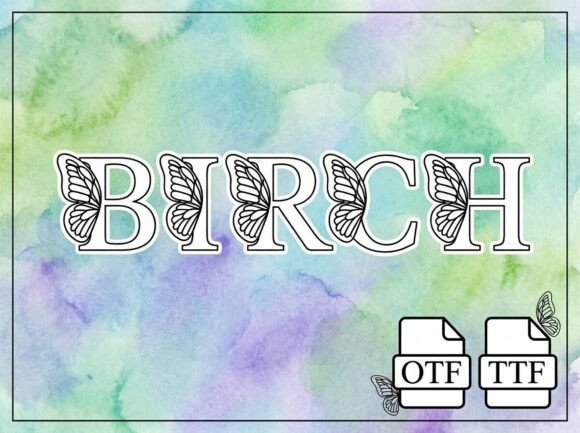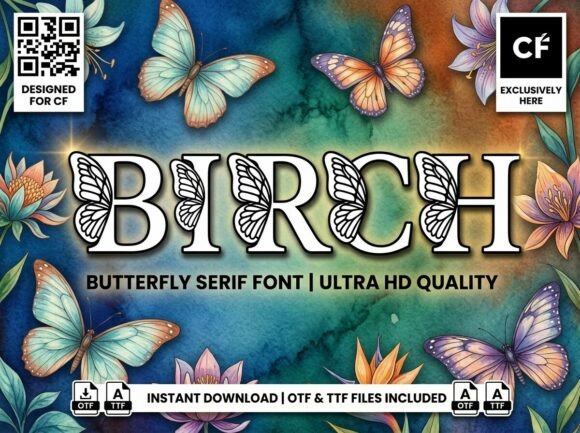
Introducing Birch Font: Elevate Your Designs with Ethereal Elegance
In the world of typography, few fonts capture the essence of whimsy and sophistication as effortlessly as Birch. This delicate display typeface is designed to infuse your designs with an ethereal and enchanting soul, making it perfect for projects that demand a touch of elegance and playfulness. With its unique blend of classic outline serif letterforms and rhythmic, hand-drawn flourishes, Birch is poised to transform your designs and elevate your brand’s visual identity.
The Unique Charm of Birch Font
Birch Font is distinguished by its classic, outline serif letterforms that exude a sense of timelessness and sophistication. What sets it apart, however, are the rhythmic, hand-drawn “butterfly wing” flourishes that adorn each letter. These flourishes are not merely decorative; they bridge the gap between whimsical nature illustration and modern boutique branding, giving Birch a unique personality that is both feminine and captivating.
One of the standout features of Birch Font is its versatility. Its balanced weight and graceful personality make it suitable for a wide range of design applications. Whether you’re creating an identity for an independent garden center, designing a logo for a boutique skincare brand, crafting invitations for a spring event, or developing high-impact social media headers, Birch offers the perfect blend of elegance and charm.
Ideal for Nature-Inspired and Feminine Designs
Birch Font’s design elements are particularly well-suited for projects that celebrate nature and femininity. For garden centers and floral shops, Birch can help create an identity that reflects the beauty and delicacy of nature. Similarly, for boutique skincare brands and wellness products, the font’s elegant and soothing aesthetic can convey a sense of purity and luxury.
Enhancing Your Brand with Birch
Incorporating Birch Font into your design projects can significantly enhance your brand’s visual identity. The font’s unique combination of classic serifs and playful flourishes can help your brand stand out in a crowded marketplace. Moreover, Birch’s readability and aesthetic appeal make it an excellent choice for both digital and print media, ensuring that your message is conveyed with clarity and style.
Tips for Using Birch Font Effectively
To make the most of Birch Font, consider the following tips:
- Pair with Complementary Fonts: For body text, pair Birch with a clean, sans-serif font to create contrast and enhance readability.
- Experiment with Colors: While pastel shades complement Birch beautifully, don’t be afraid to experiment with other colors that align with your brand’s palette.
- Utilize Flourishes Creatively: Take advantage of the unique flourishes in Birch by using them as decorative elements in your designs, such as backgrounds or dividers.
Birch Font is more than just a typeface; it’s a design element that can transform your projects with its ethereal and enchanting aesthetic. By incorporating Birch into your designs, you can create visually stunning and memorable brand identities that resonate with your audience. Whether you’re a designer, a crafter, or a business owner looking to elevate your brand, Birch Font offers a world of creative possibilities waiting to be explored.
With Birch Font, the possibilities are endless. Its unique design, versatility, and elegance make it an invaluable addition to any designer’s toolkit. So why wait? Discover the enchanting world of Birch and let your designs flutter to new heights of creativity and sophistication.